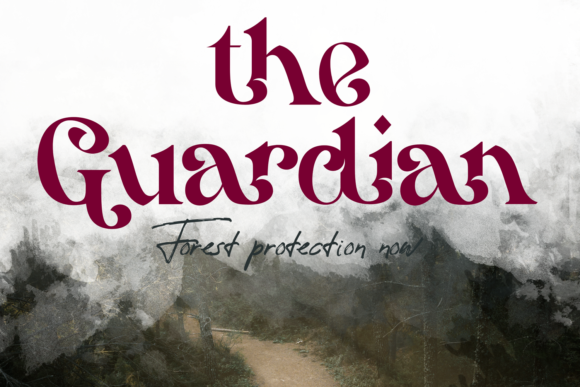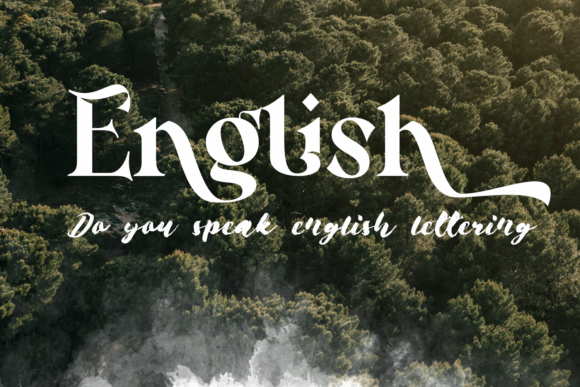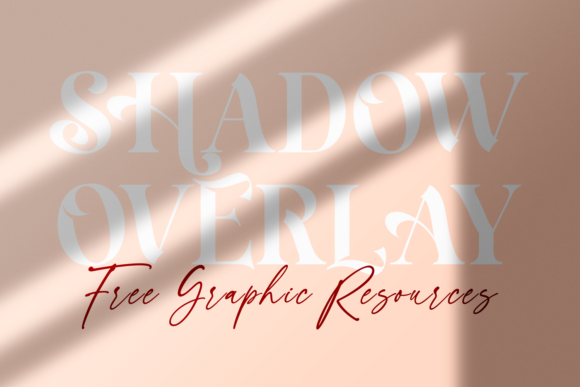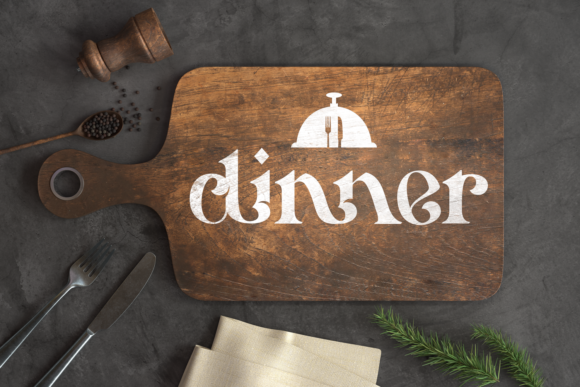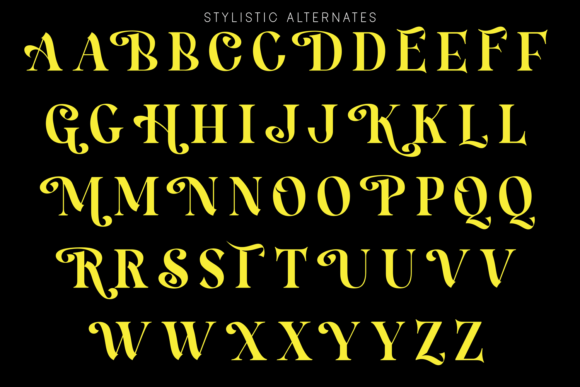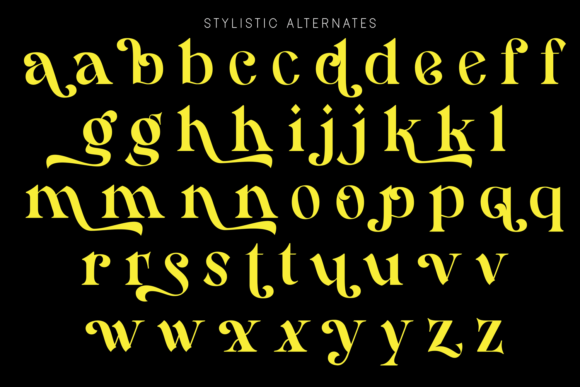
Introducing Hamachi Font: Elevate Your Designs with Elegance and Versatility
In the world of typography, a font can make or break a design. With the right font, your creation can exude elegance, sophistication, and professionalism. This is where Hamachi Font comes in – an elegant yet relaxed and adaptable serif font that can elevate any design project. In this article, we’ll dive into the features and benefits of Hamachi Font, and explore how it can become an incredibly valuable asset to your font library.
The Characteristics of Hamachi Font
Hamachi Font is a serif font that strikes the perfect balance between elegance and relaxation. Its adaptable nature makes it suitable for a wide range of design projects, from editorials and magazines to branding and packaging. The font’s classic serif features provide a sense of tradition and timelessness, while its clean lines and subtle curves give it a modern twist.
Why Hamachi Font Stands Out
So, what sets Hamachi Font apart from other serif fonts? Here are a few reasons why it’s an excellent addition to your font library:
- Versatility: Hamachi Font is designed to be adaptable, making it suitable for various design projects, including headings, body text, and even display text.
- Elegance: The font’s classic serif features and clean lines give it an air of sophistication and elegance, perfect for high-end branding and luxury designs.
- Readability: Hamachi Font is optimized for readability, with clear and distinct letterforms that ensure your text is easy to read, even at smaller font sizes.
Use Cases for Hamachi Font
Hamachi Font’s versatility makes it suitable for a wide range of design projects. Here are some use cases to consider:
- Editorials and Magazines: Use Hamachi Font as a body text font for your editorial or magazine design, and watch your content come alive with elegance and sophistication.
- Branding and Packaging: Hamachi Font is perfect for luxury brands, high-end products, and premium services, adding a touch of sophistication and refinement to your branding and packaging.
- Web Design: Use Hamachi Font as a heading or body text font for your website, and enjoy its adaptability and readability across various screen sizes and devices.
Tips for Using Hamachi Font Effectively
To get the most out of Hamachi Font, here are some tips to keep in mind:
- Experiment with Font Sizes: Hamachi Font is optimized for readability, so experiment with different font sizes to find the perfect balance for your design.
- Pair it with Other Fonts: Hamachi Font pairs well with other serif and sans-serif fonts, so don’t be afraid to experiment with font combinations to create visual interest.
- Pay Attention to Line Spacing: Make sure to adjust line spacing to ensure your text is easy to read and visually appealing.
Hamachi Font is an elegant yet relaxed and adaptable serif font that can elevate any design project. Its versatility, elegance, and readability make it an excellent addition to your font library. Whether you’re a designer, craftsperson, or simply a typography enthusiast, Hamachi Font is sure to become a favorite. So why not give it a try and see how it can transform your designs?